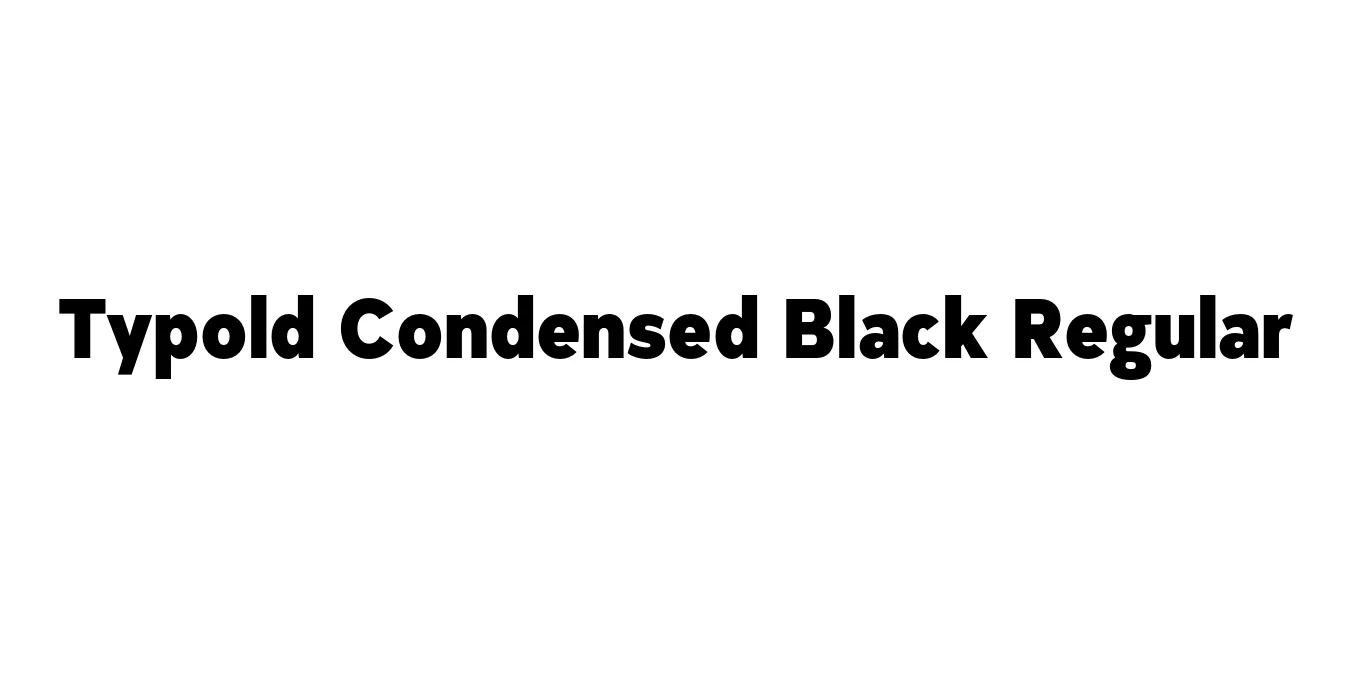
Typold Condensed Black Regular
Designed by Jonathan Hill
Typold Condensed Black Regular is a powerhouse geometric sans-serif typeface designed by Jonathan Hill and released through The Northern Block. This specific variant represents a meticulous refinement of geometric forms, balancing industrial precision with a modern, humanistic touch. As part of the wider Typold family, the condensed width was engineered to provide maximum impact within restricted horizontal spaces, making it an essential tool for designers seeking a bold, authoritative voice.
The construction of this font is based on a refined grid system, ensuring that even at its heaviest Black weight, the internal counters remain clear and the legibility remains uncompromised. Its clean lines and sophisticated proportions make it a versatile choice for contemporary branding, high-end editorial work, and technical documentation where a sense of reliability and strength is paramount.
Typold Condensed Black Regular Best Uses
Perfect for striking headlines in magazines and newspapers where horizontal space is limited.
Ideal for bold logos and corporate identities that require a strong, stable, and modern presence.
Highly effective for mobile app headers and web UI components that need high legibility in tight layouts.
Excellent for high-impact visual communication, event posters, and promotional advertising.